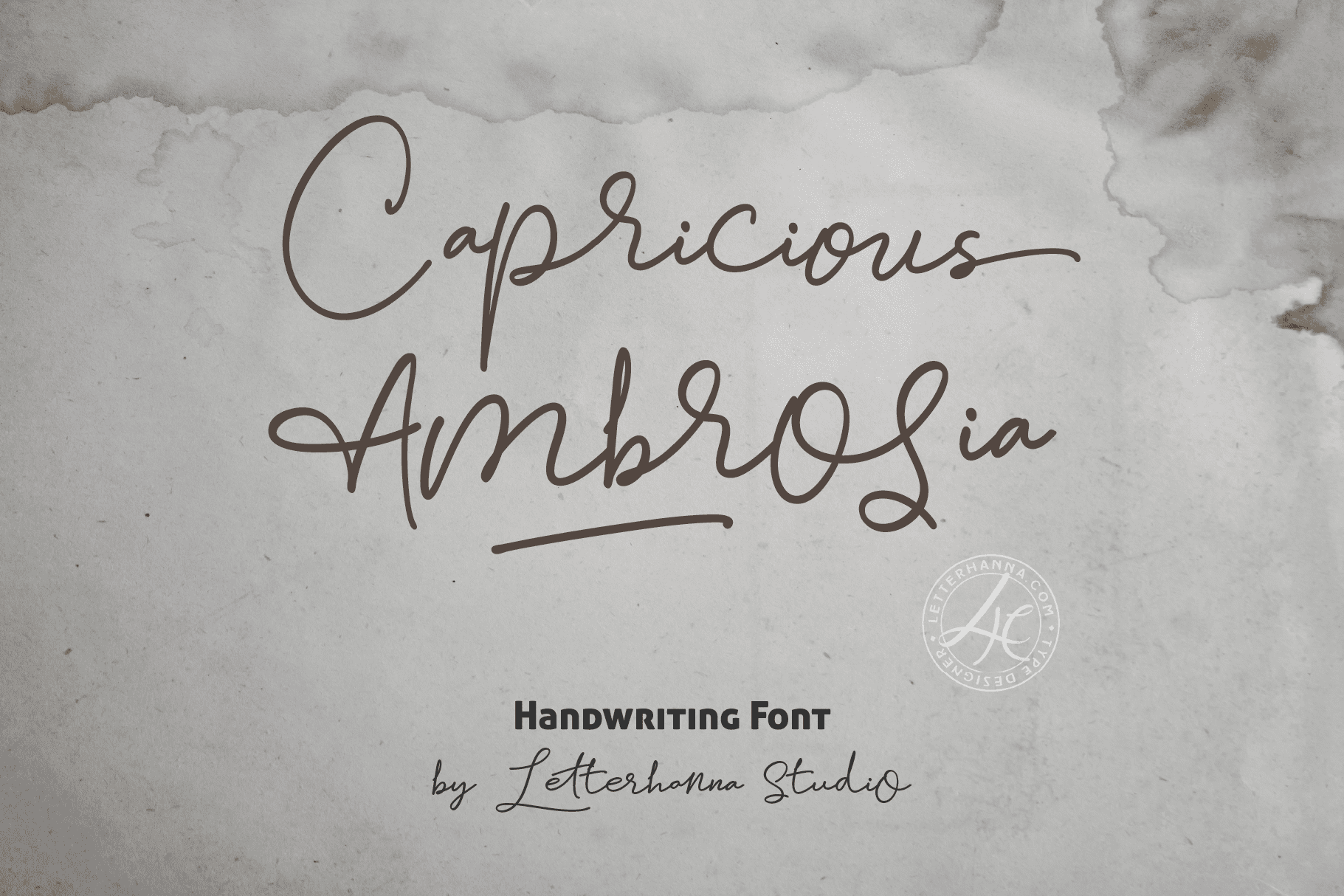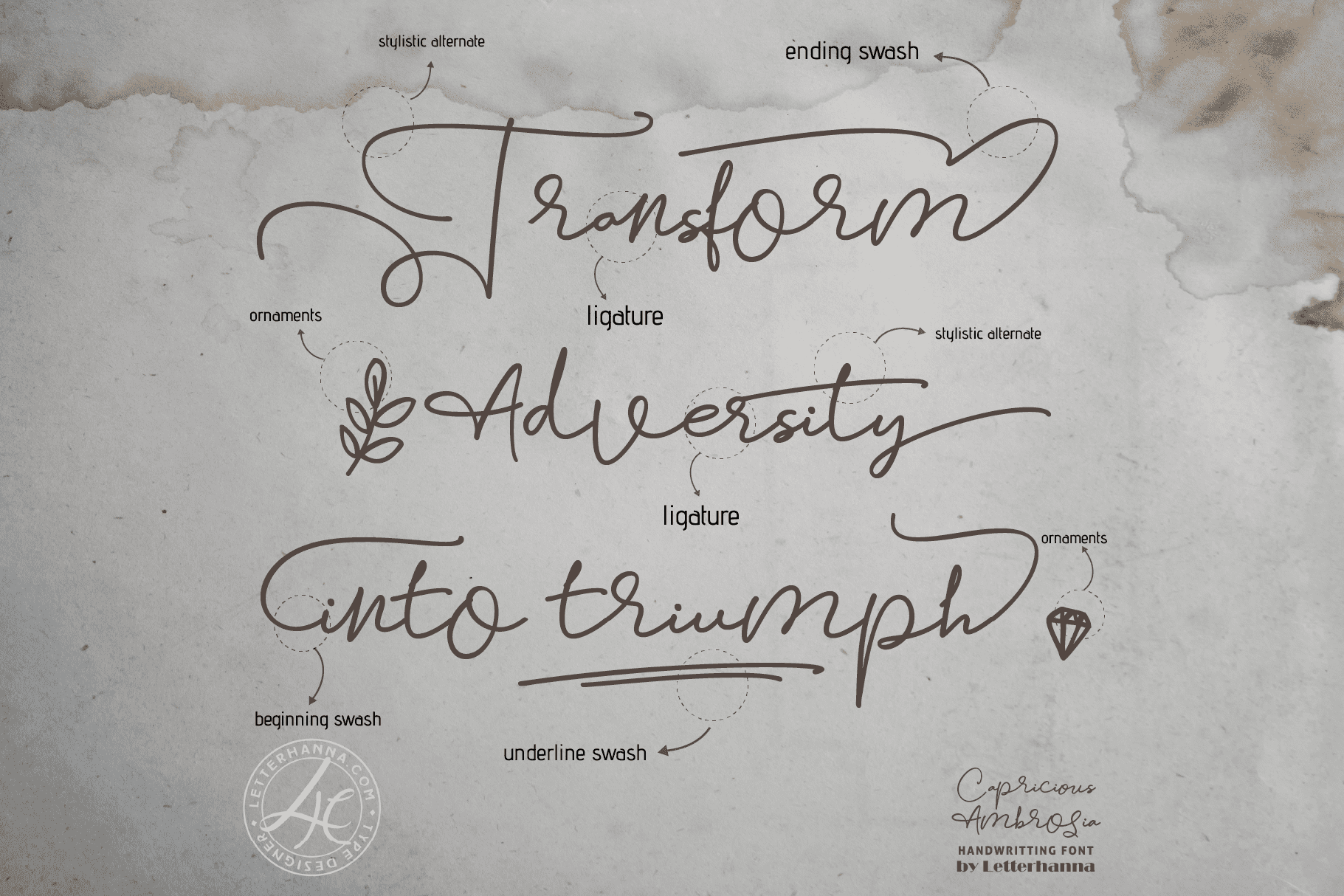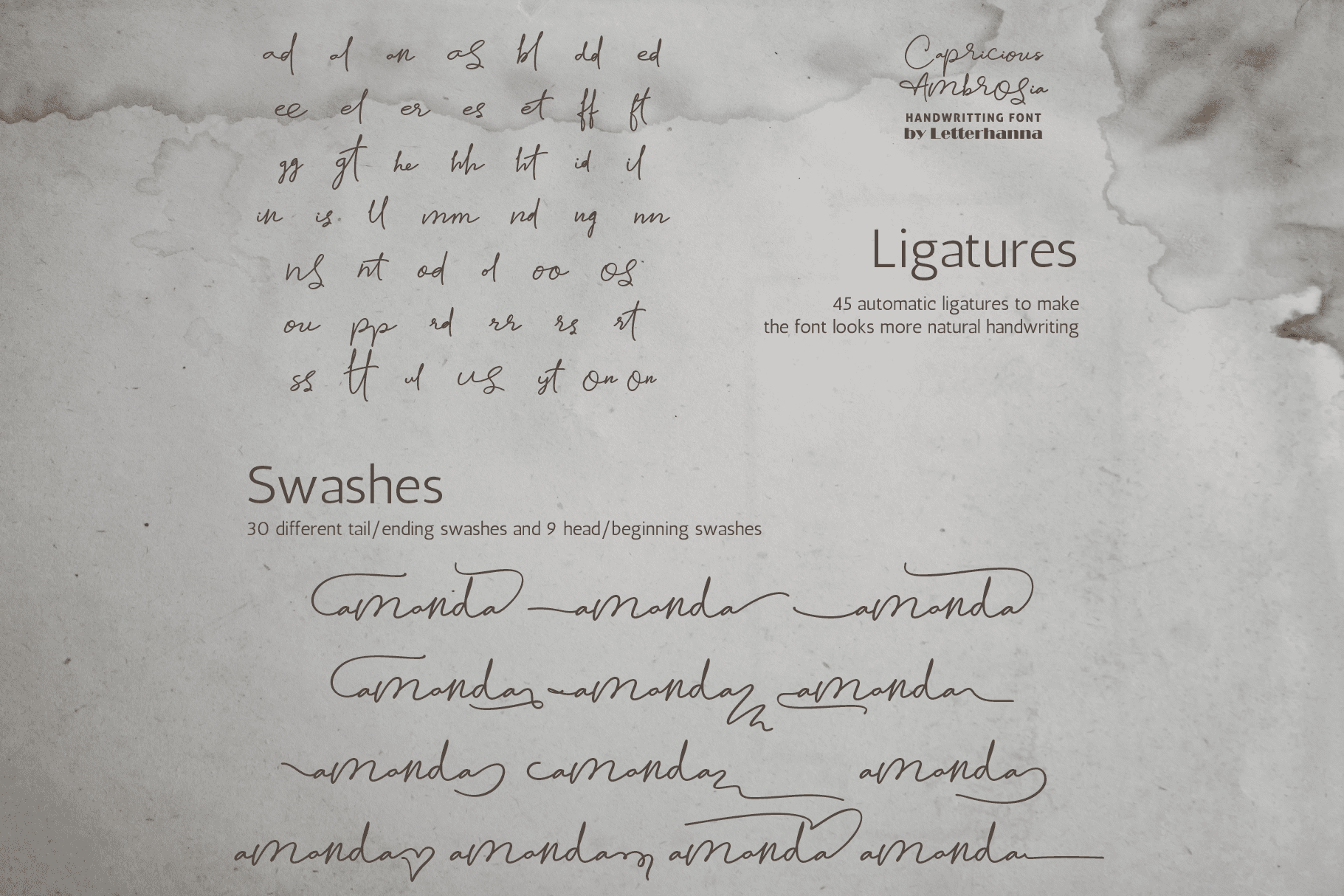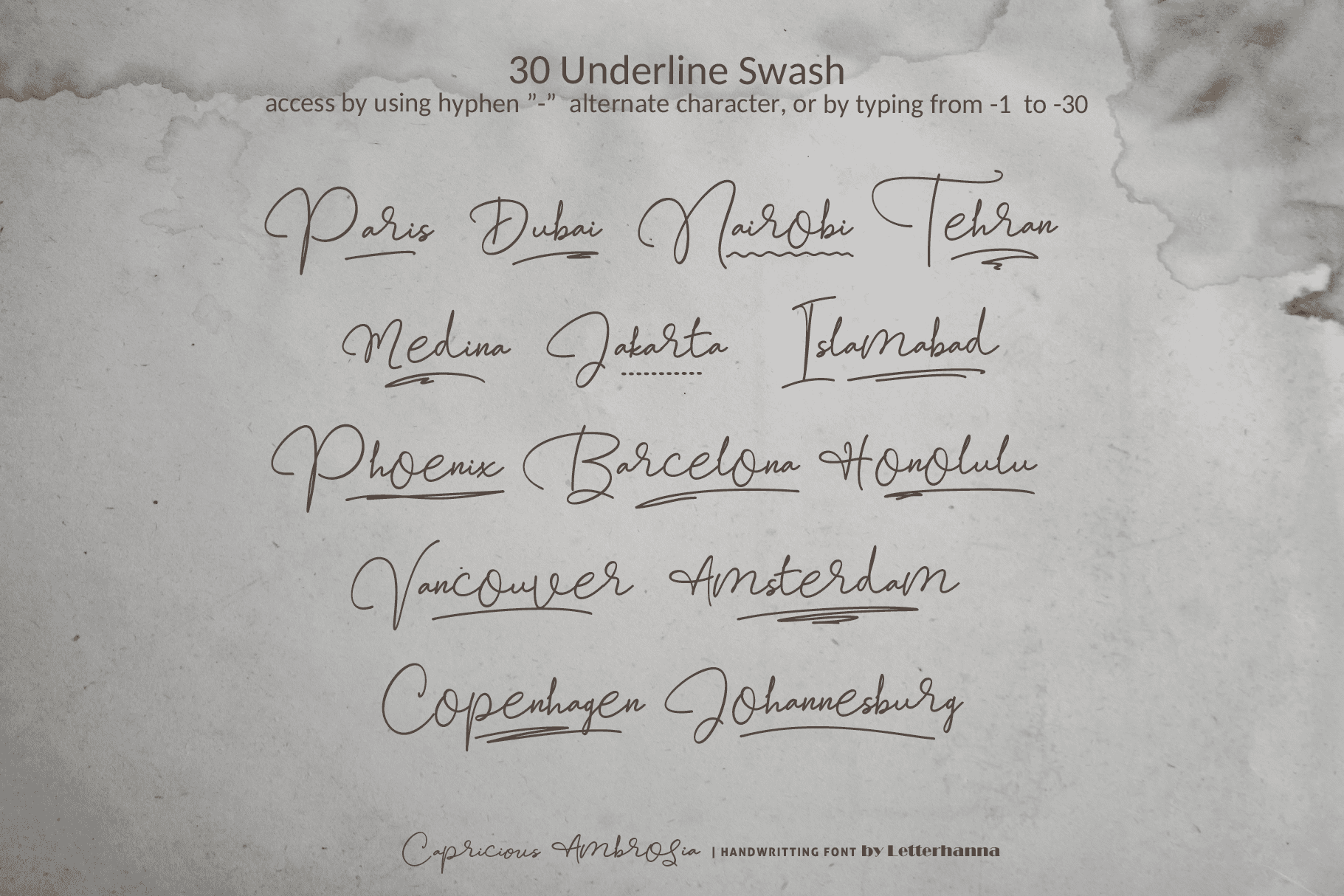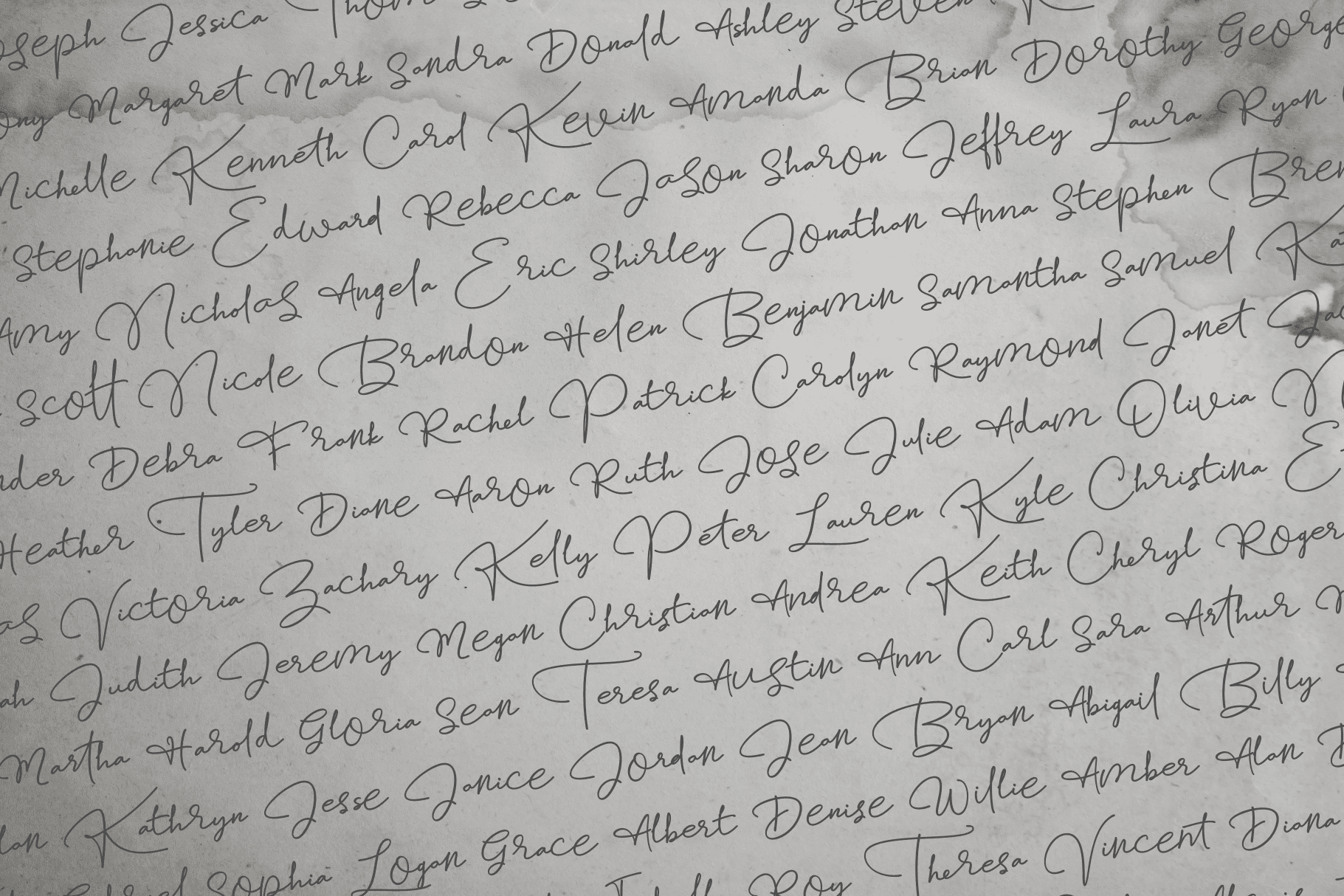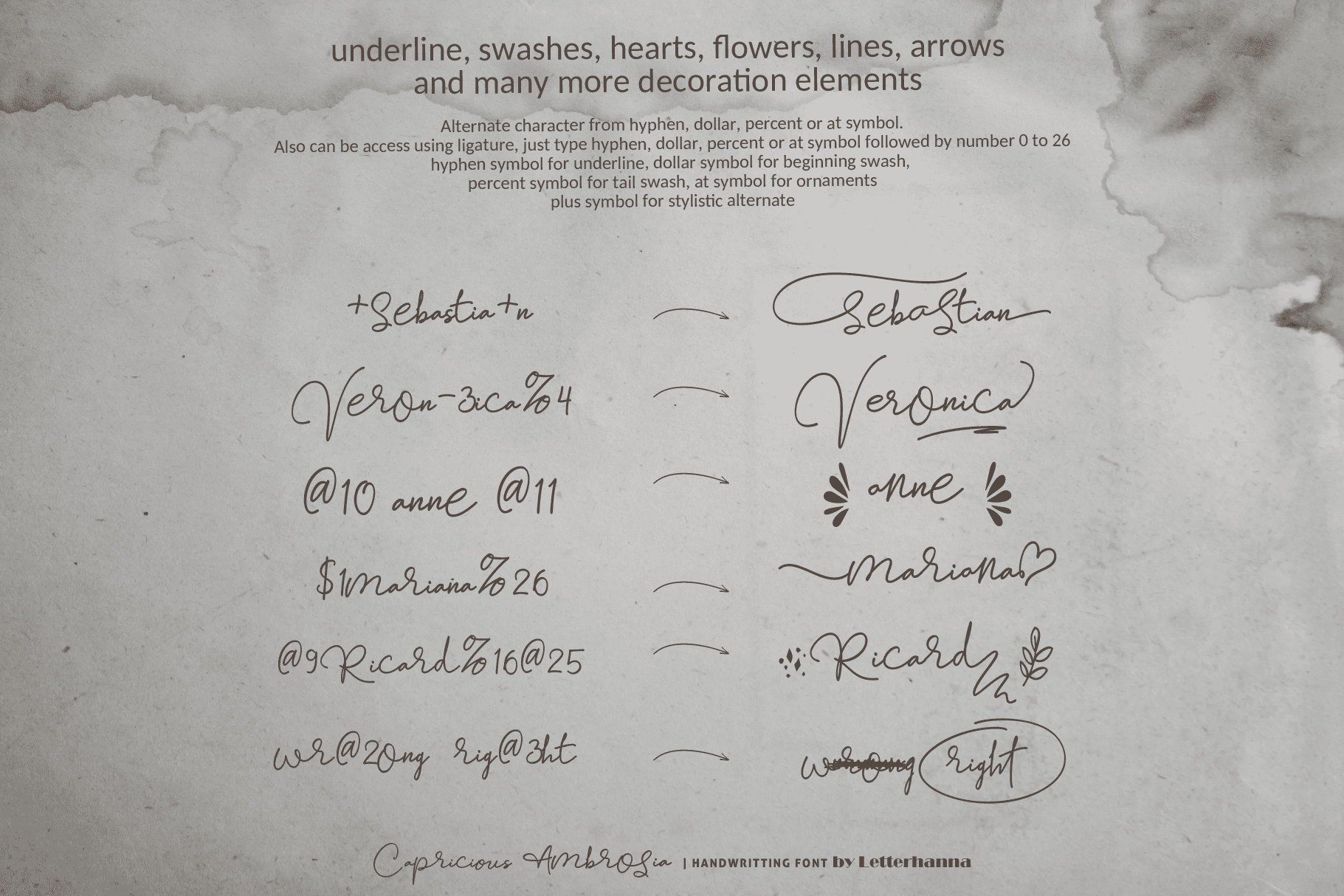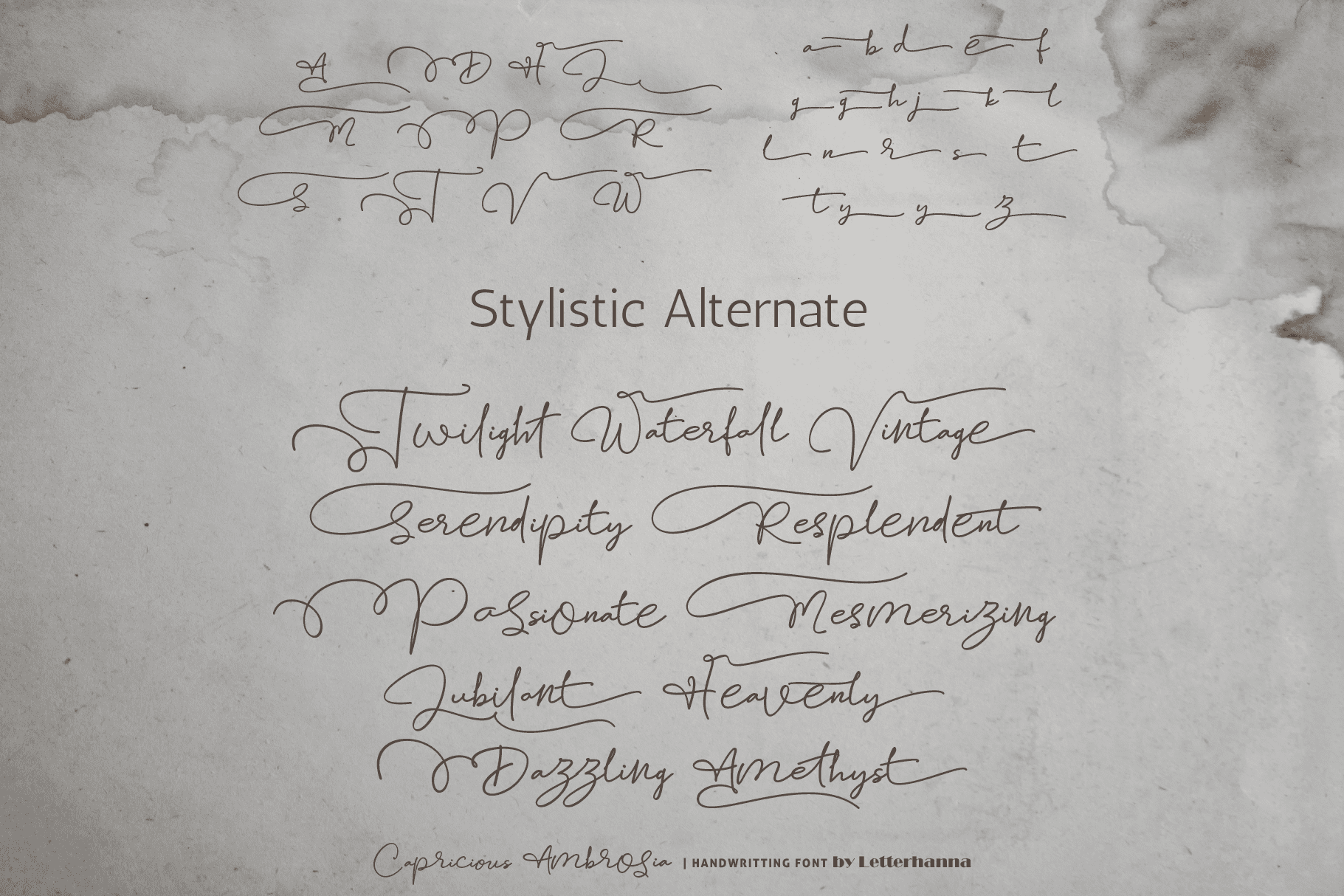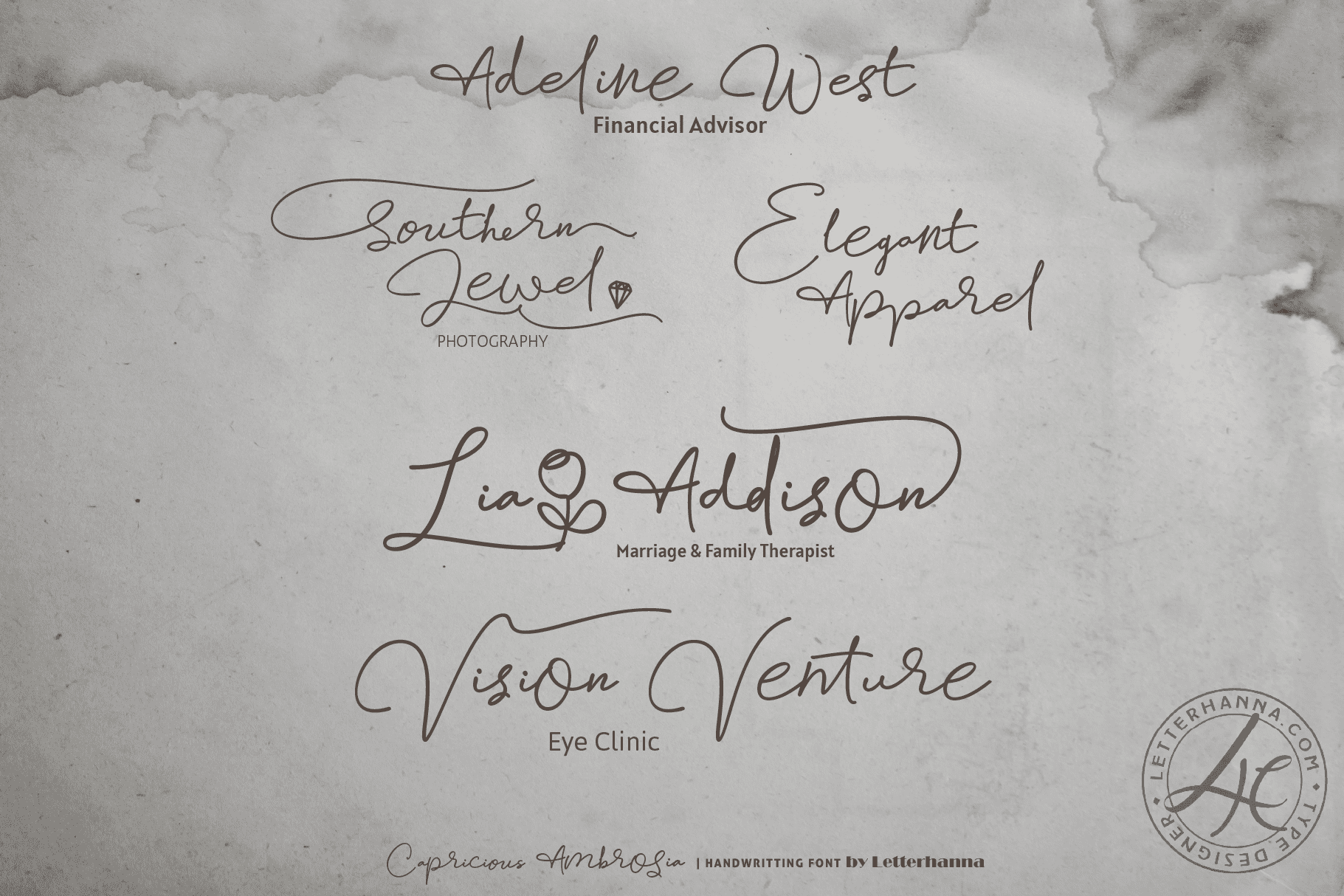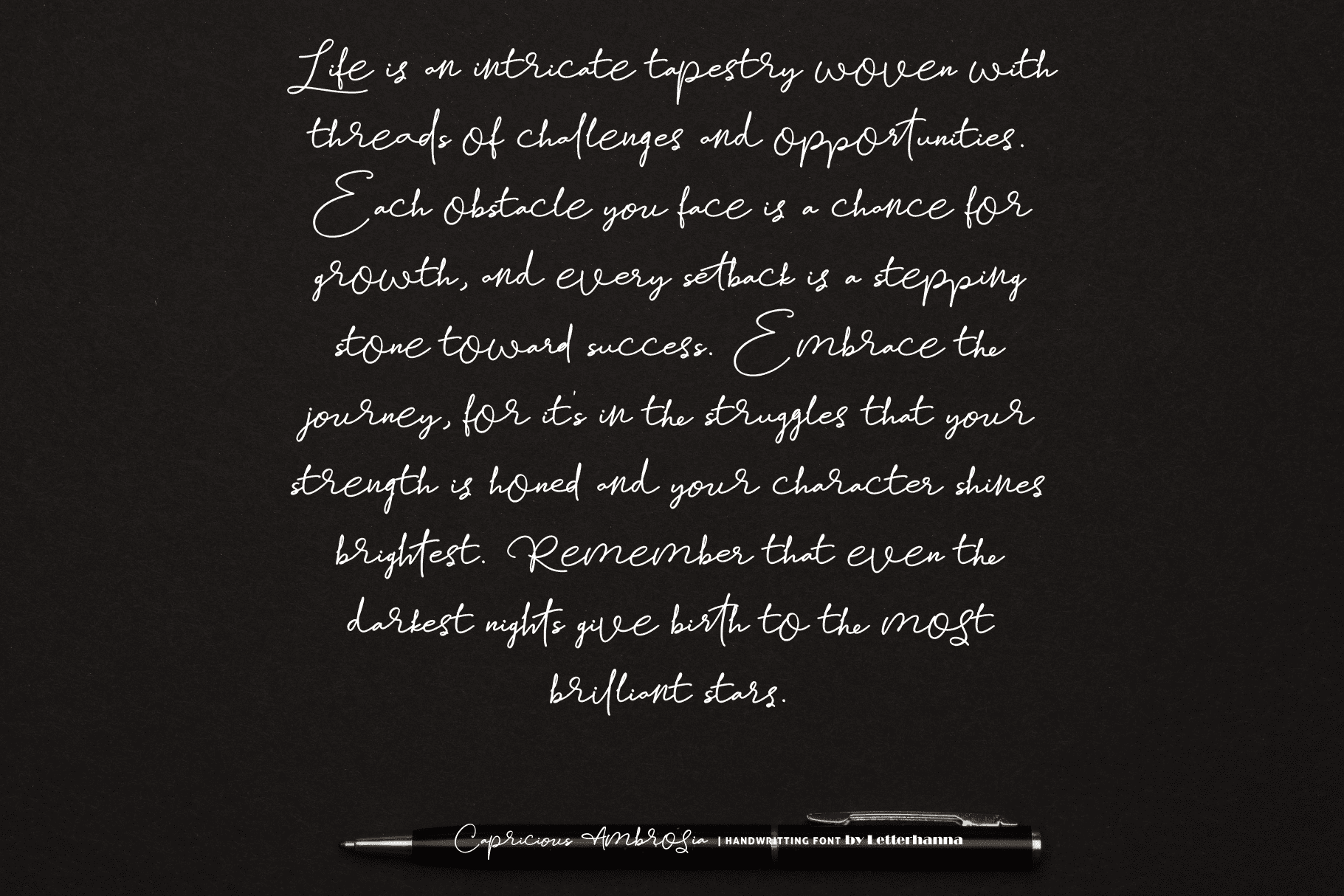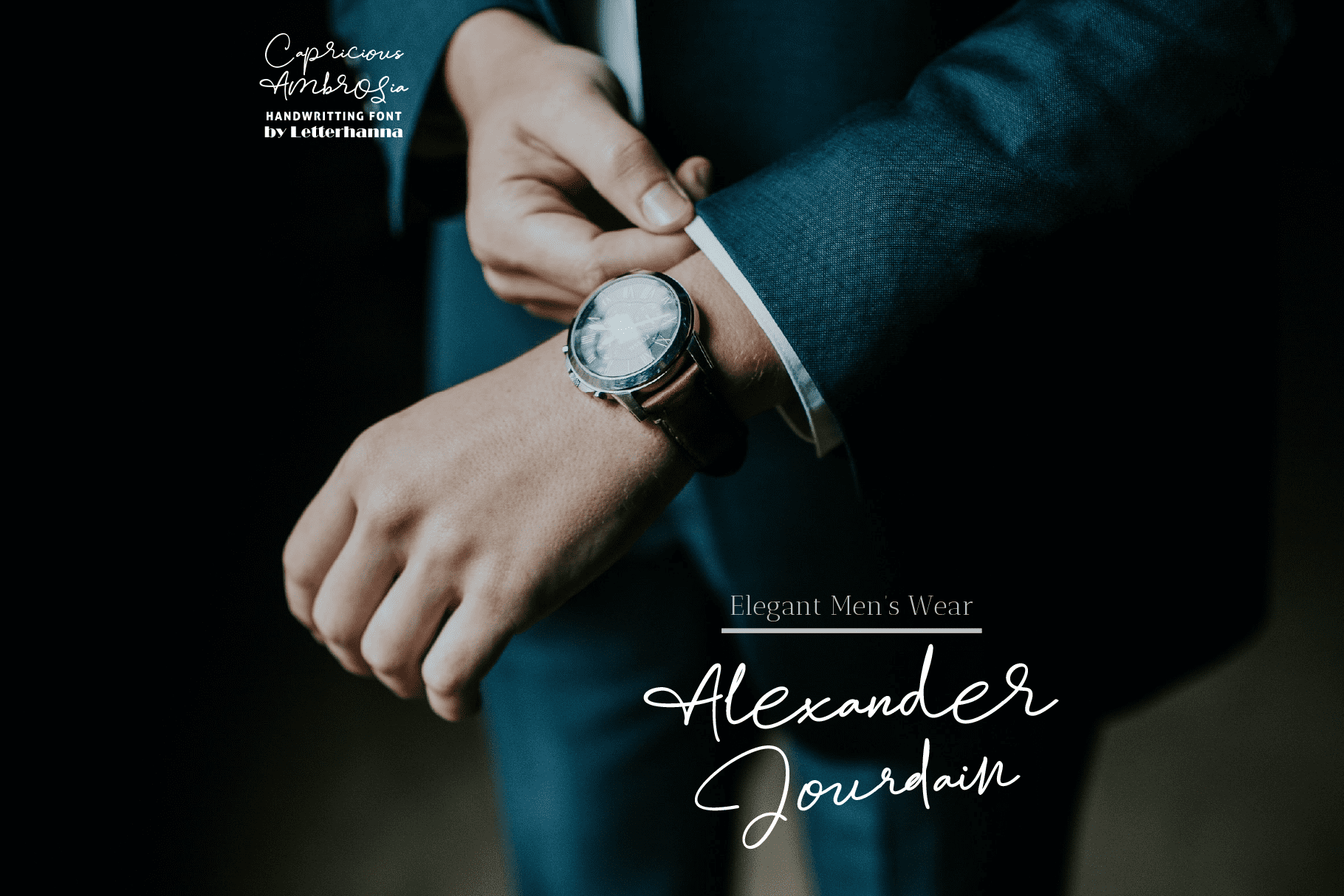
Introducing “Capricious Ambrosia” – a captivating handwritten font that embodies the essence of unpredictability and delight. Each stroke of this font is a wild card, carrying a sense of unexpected charm. Just like a nomad’s journey filled with surprises, “Capricious Ambrosia” adds an element of mystique to your designs. Whether you’re seeking a font that breaks conventions or a touch of divine creativity, let “Capricious Ambrosia” guide your artistic path. Embrace the beauty of unpredictability and savor the unique flavor it brings to your projects.
Capricious Ambrosia Font was created to look as close to a natural handwritten script as possible by including over 45 natural-looking opentype ligatures, Uppercase and lowercase Stylistic Alternate, a lot of head/beginning swashes and tail/ending swashes. There are also underline swashes included and lot more ornaments, arrow, scribbles, etc.
Stylistic alternate can be access by type plus symbol “+” in front of the original letter, for example type +A to get stylistic alternate of letter A capital.
Underline swashes can be access by type hyphen symbol “-” then followed by number 1 to 30, for example type -3, -22 or -17 etc to get various different underline swashes.
Head/beginning swashes can be access by type dollar symbol “$” then followed by number 1 to 9, for example type $2 or $8 to get various different head/beginning swashes.
Tail/ending swashes can be access by type percent symbol “%” then followed by number 1 to 30, for example type %3 or %15 etc to get various different tail/ending swashes.
Ornaments can be access by type at symbol “at” then followed by number 1 to 26, for example type @4 or @13 etc to get various different ornaments.
– Uppercase and Lowercase letters
– Numbering and Punctuations
– Multilingual Support
– Ligatures
– Beginning and ending swashes
– Underline swashes
– Stylistic alternate
– Ornaments
– Easy access swash just by using ligatures